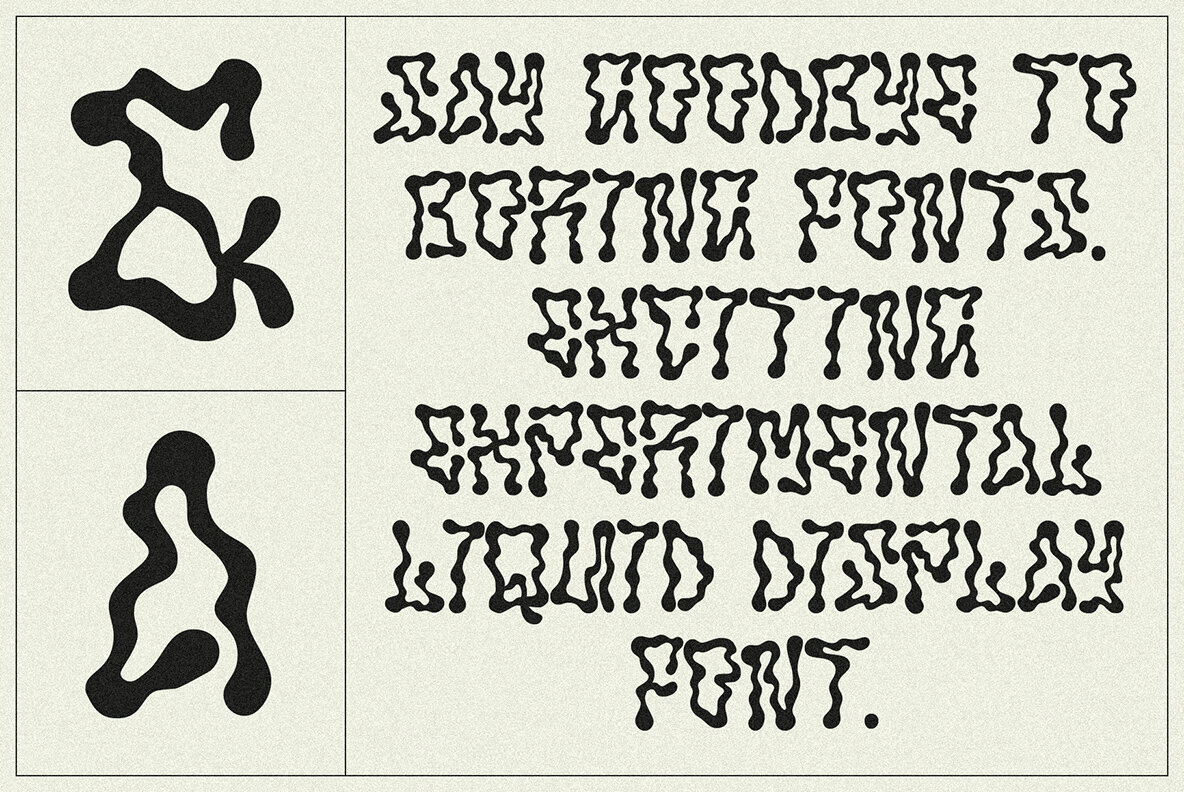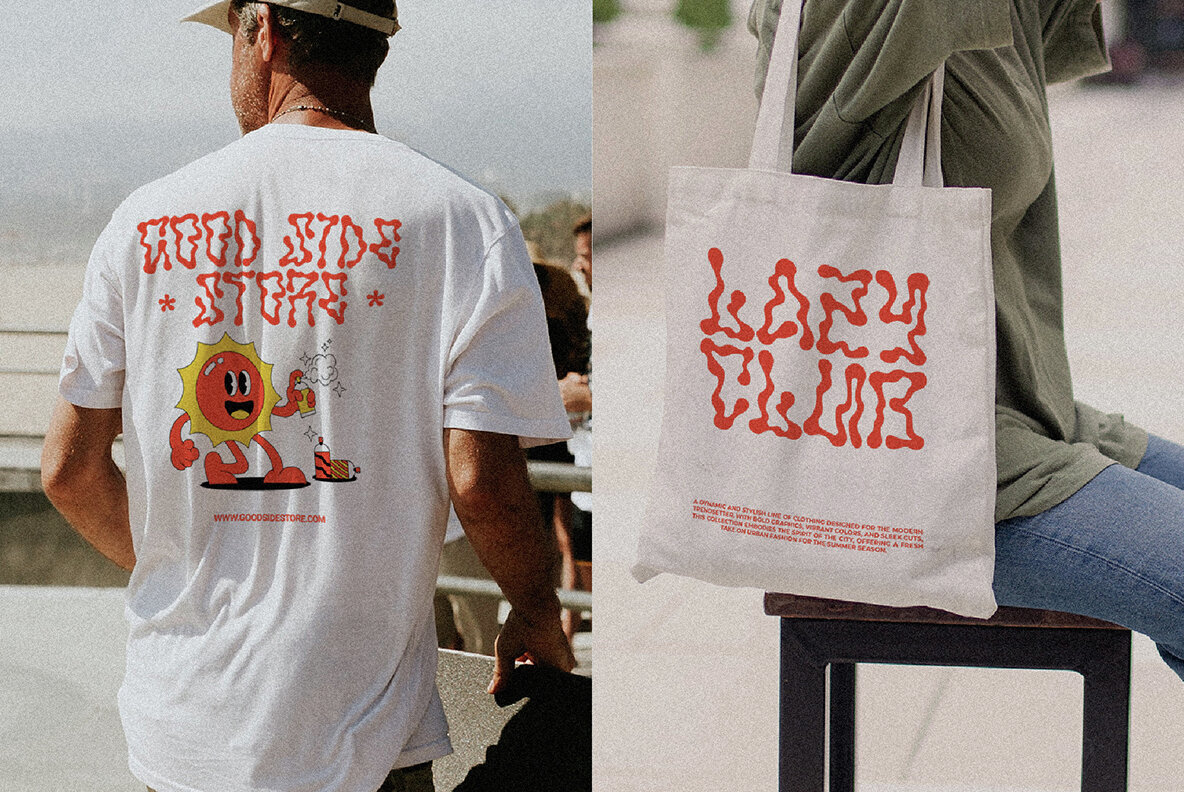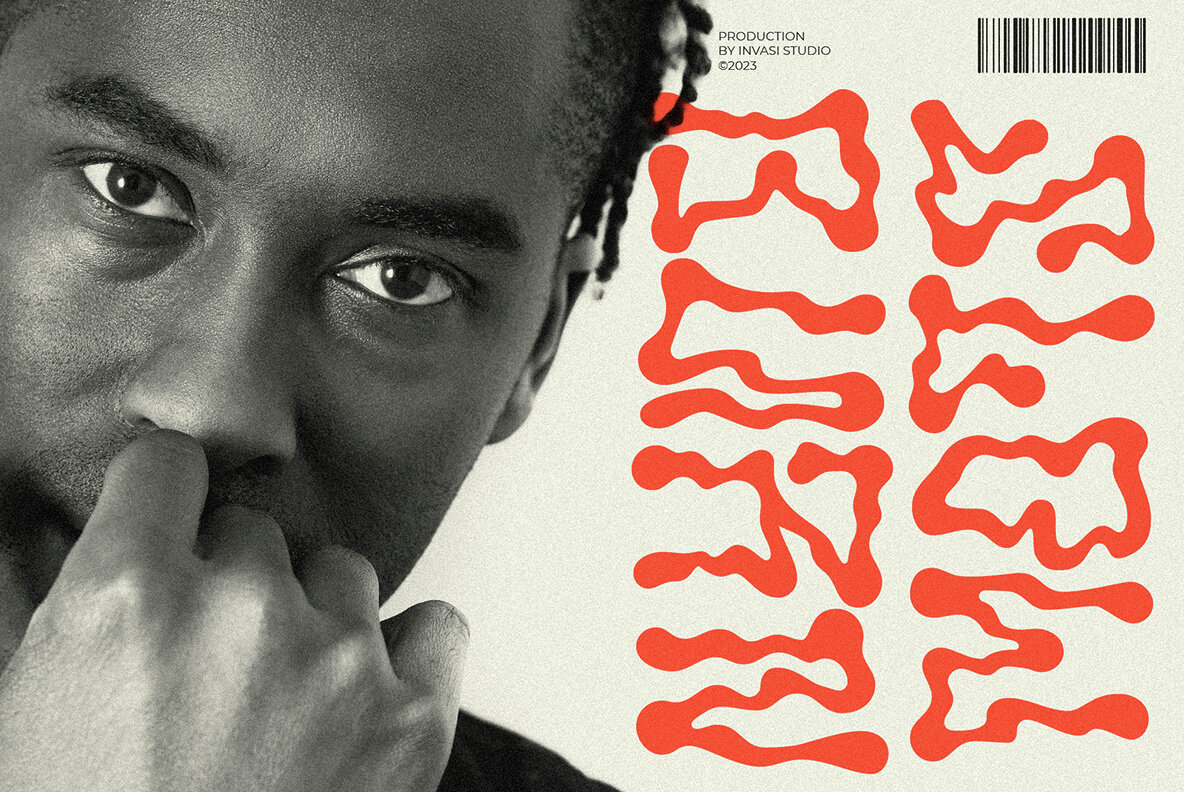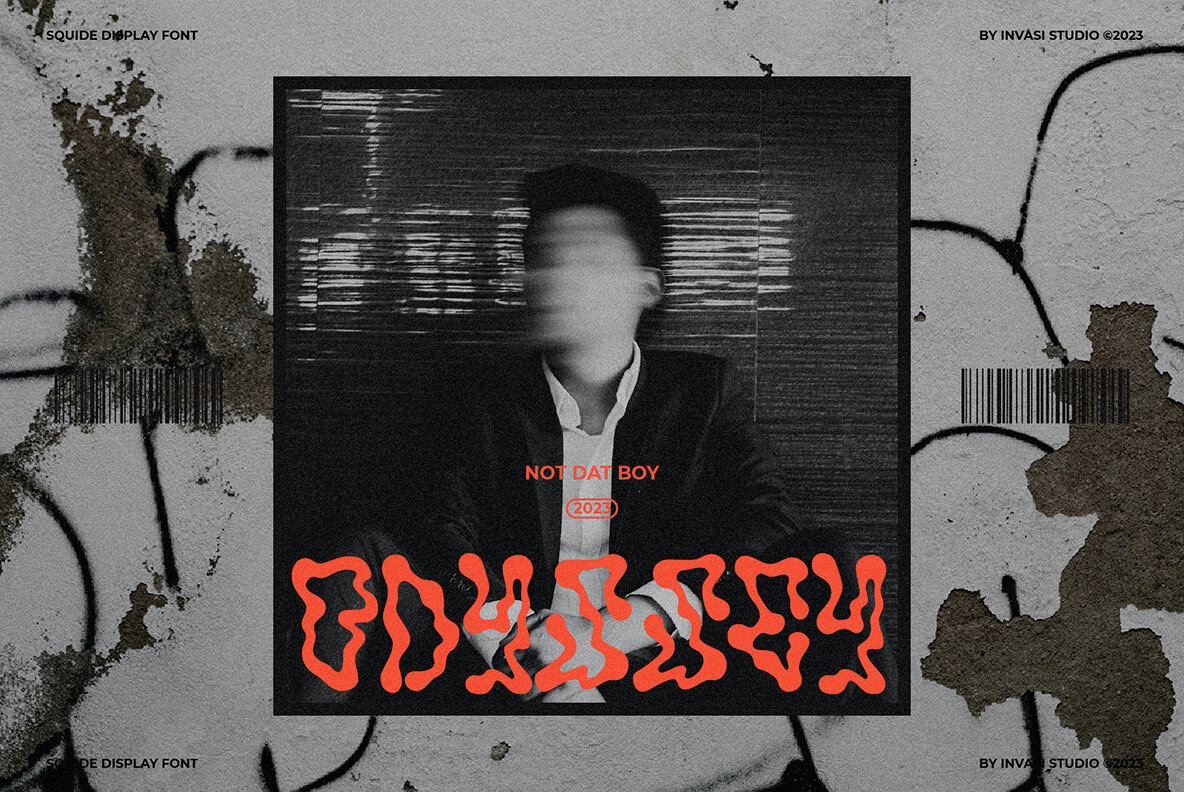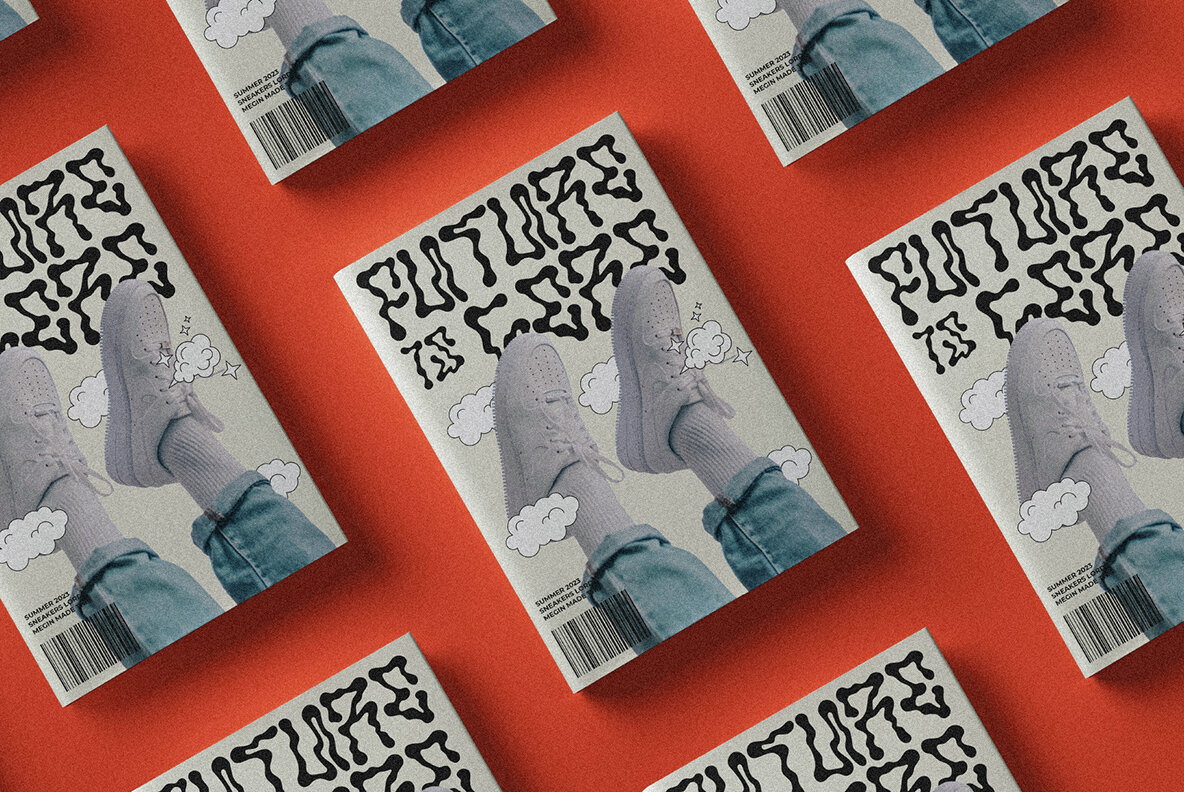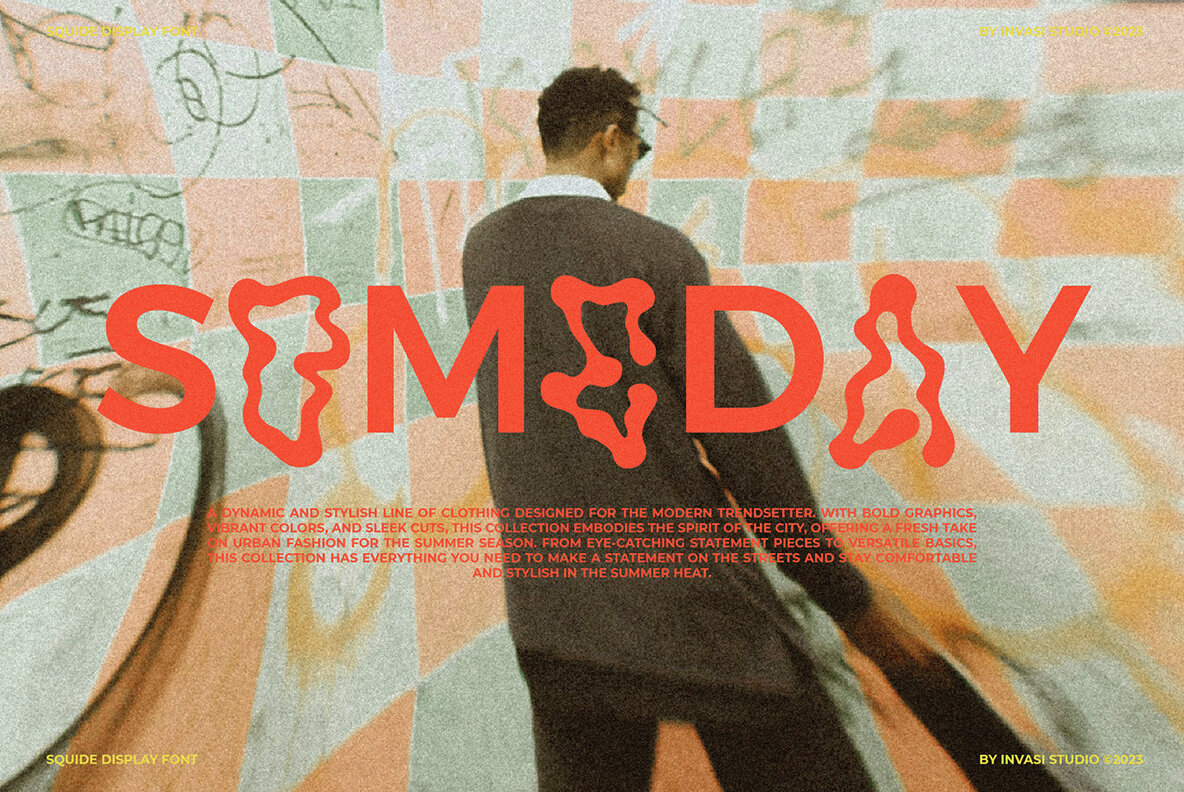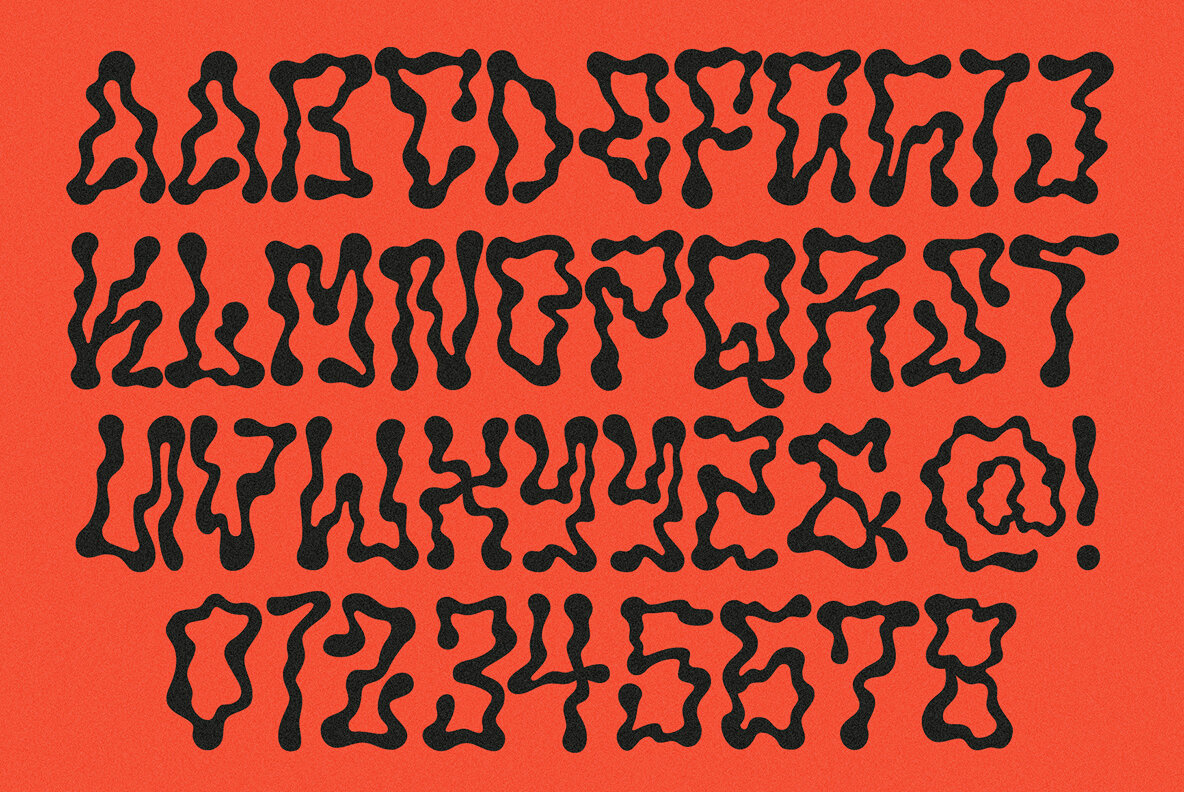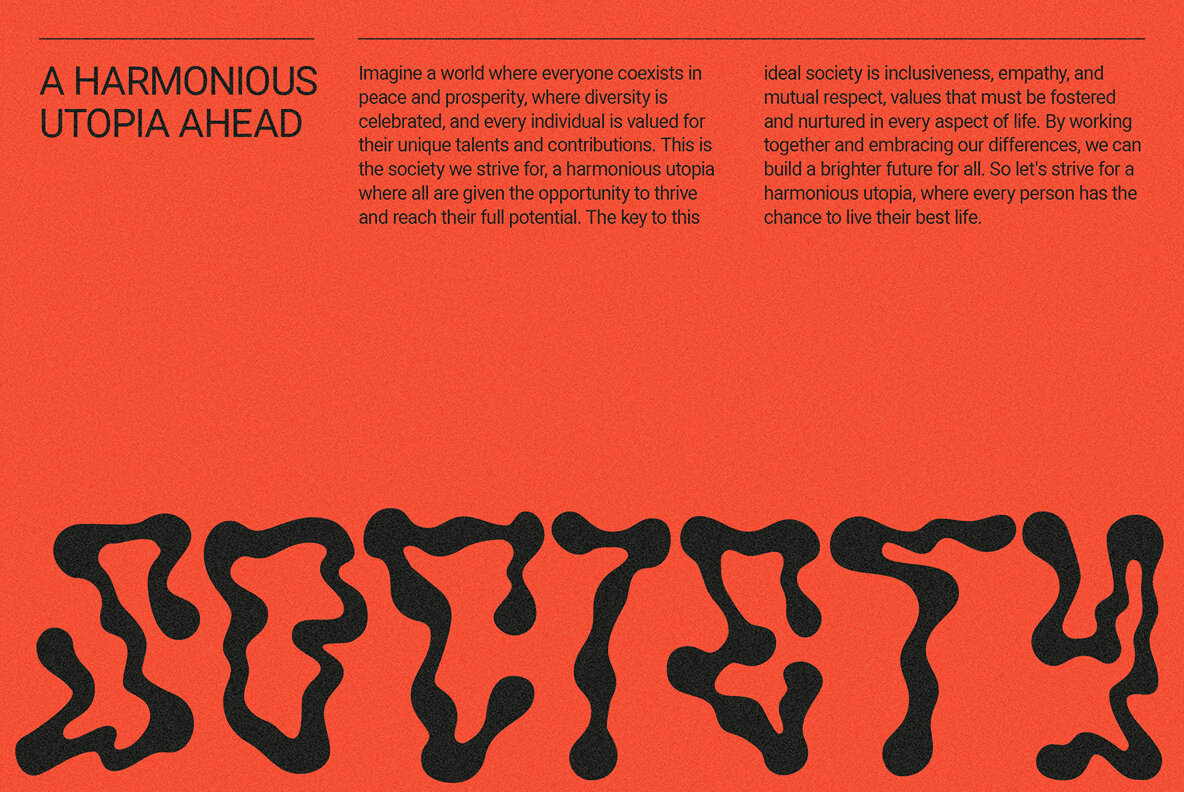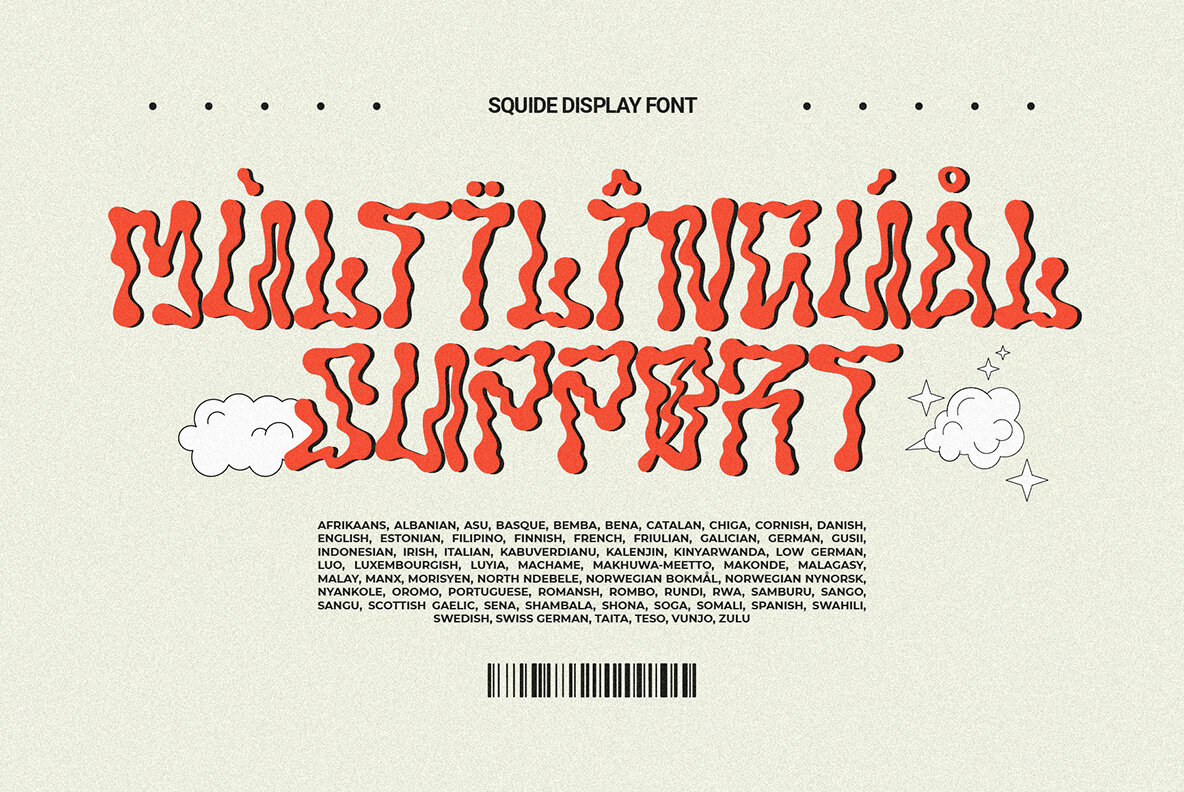
Squide Font
Introducing Squide Font, the experimental liquid urban display font that brings a bold and modern touch to any design project. With its fluid lines and urban edge, Squide Font is perfect for creating eye-catching headlines, logos, posters, and more. Whether you're designing for print or digital media, this font will add a unique and distinctive style to your work. The font's liquid quality gives it a sense of movement and energy, making it ideal for projects that require a dynamic and futuristic feel. With its versatile design and exceptional readability, Squide Font is a must-have for any graphic designer, art director, or marketer looking to take their work to the next level. Get your hands on Squide Font today and elevate your designs to the next level!